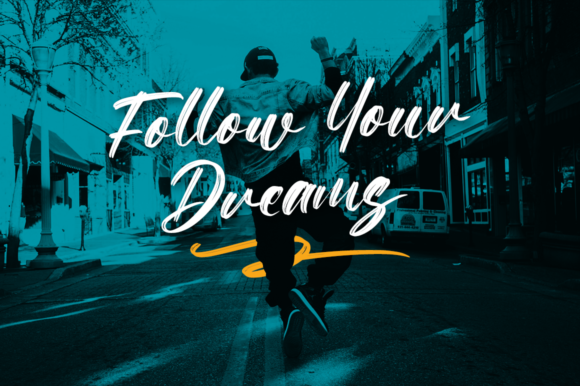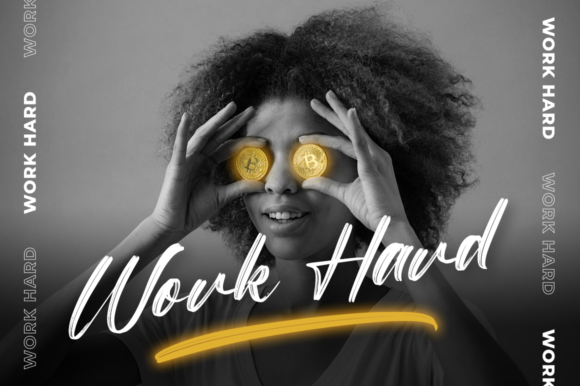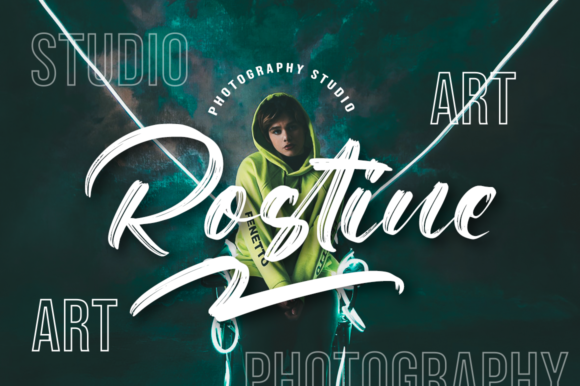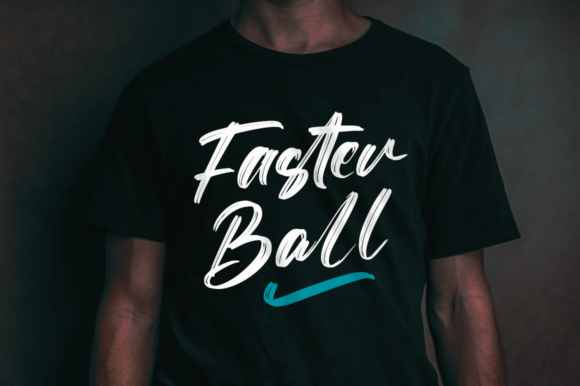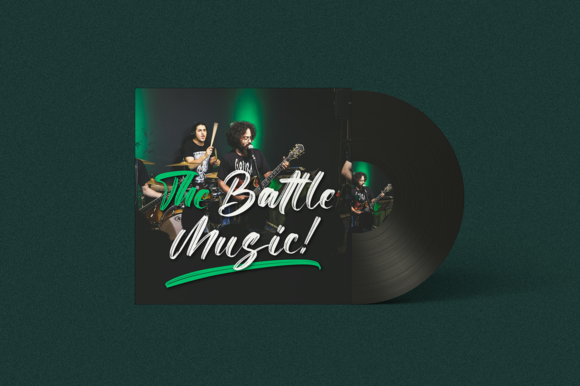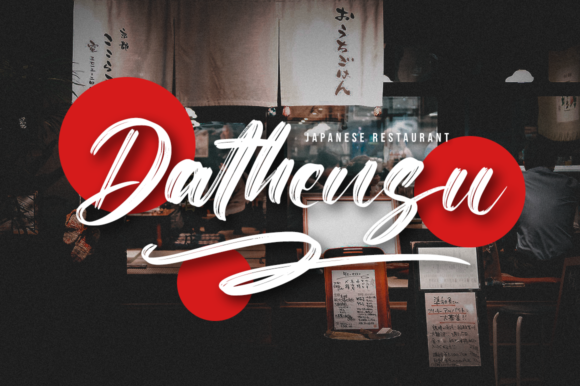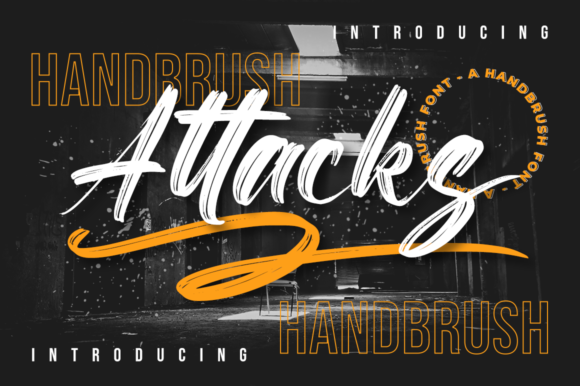
Unleash the Power of Attacks Font: Elevate Your Designs with a Bold and Beautiful Brushed Handwritten Font
Are you tired of using the same old fonts for your design projects? Do you want to add a touch of personality and style to your headlines and logotypes? Look no further than Attacks Font, a gorgeous and bold brushed handwritten font that’s sure to take your designs to the next level. In this article, we’ll dive into the world of Attacks Font, exploring its features, benefits, and uses, and showing you how to make the most of this incredible font.
What is Attacks Font?
Attacks Font is a stunning brushed handwritten font that’s been carefully crafted to give your designs a stylish and confident look. With its bold and dynamic strokes, this font reads as strong, confident, and full of character. Whether you’re working on a logo, headline, or any other design project, Attacks Font is the perfect choice for adding a touch of nostalgia and personality to your work.
Key Features of Attacks Font
So, what makes Attacks Font so special? Here are just a few of its key features:
- Bold and Brushed Strokes: Attacks Font features bold and brushed strokes that give it a unique, hand-crafted look.
- Handwritten Style: This font has a beautiful, handwritten style that’s perfect for adding a touch of personality to your designs.
- Dynamic and Confident: Attacks Font reads as strong, confident, and dynamic, making it perfect for headlines and logotypes.
- Nostalgic Character: This font has a nostalgic feel that’s sure to add tons of character to your designs.
Benefits of Using Attacks Font
So, why should you choose Attacks Font for your design projects? Here are just a few of the benefits of using this amazing font:
- Adds Personality to Your Designs: Attacks Font is the perfect way to add a touch of personality and style to your designs.
- Perfect for Headlines and Logotypes: This font is specifically designed for use in headlines and logotypes, making it perfect for branding and advertising projects.
- Easy to Read: Despite its bold and brushed strokes, Attacks Font is easy to read, even at smaller sizes.
- Versatile: This font can be used in a wide range of design projects, from posters and flyers to logos and packaging.
How to Use Attacks Font
Using Attacks Font is easy! Here are a few tips to get you started:
- Pair it with Other Fonts: Attacks Font looks great when paired with other fonts, such as sans serifs and scripts.
- Use it for Headlines and Titles: This font is perfect for use in headlines and titles, where its bold and dynamic strokes can really make an impact.
- Experiment with Colors and Textures: Attacks Font looks great in a wide range of colors and textures, so don’t be afraid to experiment and find the perfect look for your design.
Who is Attacks Font for?
Attacks Font is perfect for designers, crafters, and anyone looking to add a touch of personality and style to their designs. Whether you’re a professional designer or just starting out, this font is a great addition to your toolkit.
Some examples of designers who may find Attacks Font useful include:
- Graphic Designers: Attacks Font is perfect for use in graphic design projects, such as posters, flyers, and brochures.
- Logo Designers: This font is specifically designed for use in logotypes, making it a great choice for branding and identity projects.
- Advertising Designers: Attacks Font is perfect for use in advertising projects, such as billboards, magazine ads, and social media graphics.
In conclusion, Attacks Font is a stunning brushed handwritten font that’s perfect for adding a touch of personality and style to your designs. With its bold and dynamic strokes, this font reads as strong, confident, and full of character. Whether you’re a designer, crafter, or just starting out, Attacks Font is a great addition to your toolkit. So why wait? Download Attacks Font today and start taking your designs to the next level!